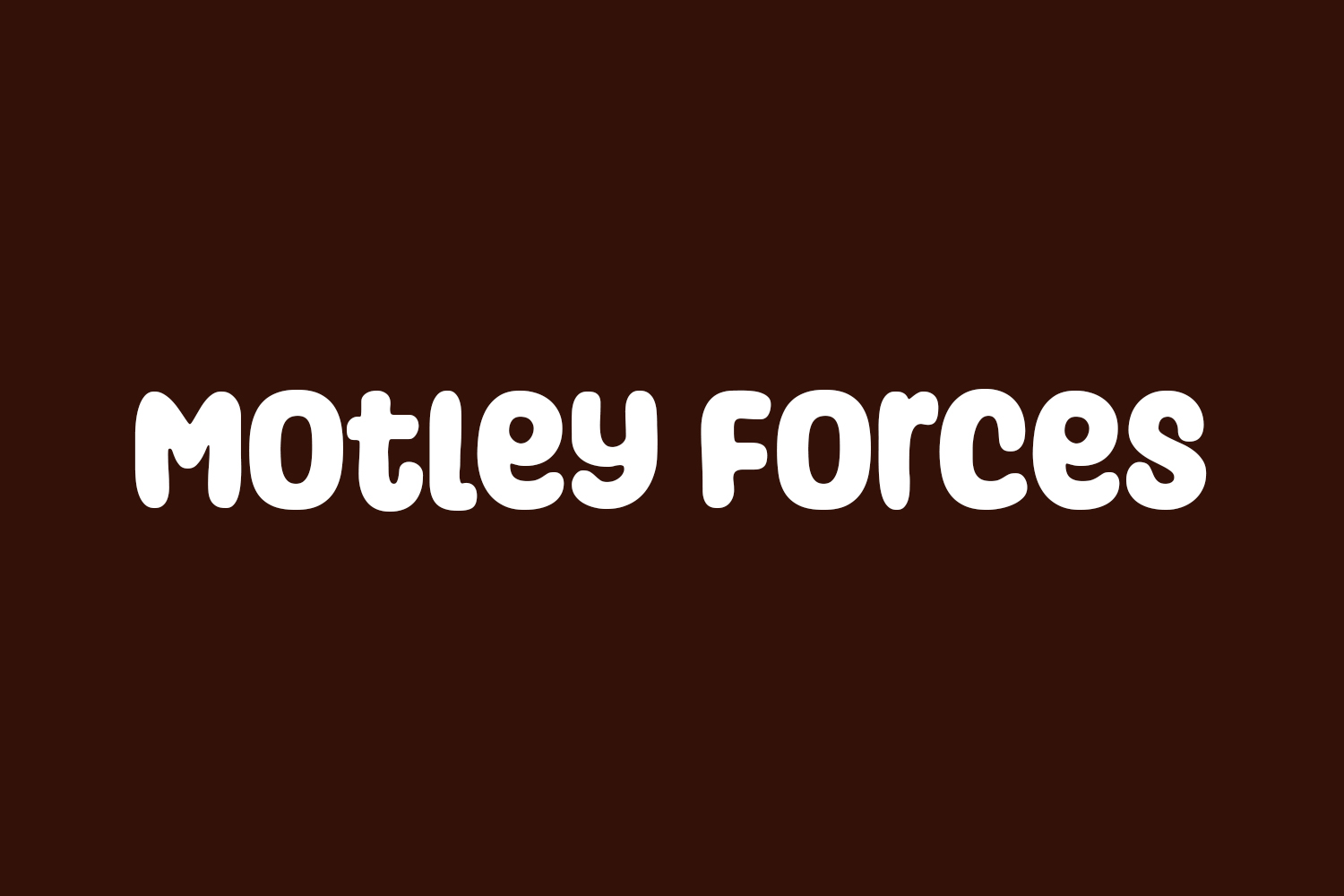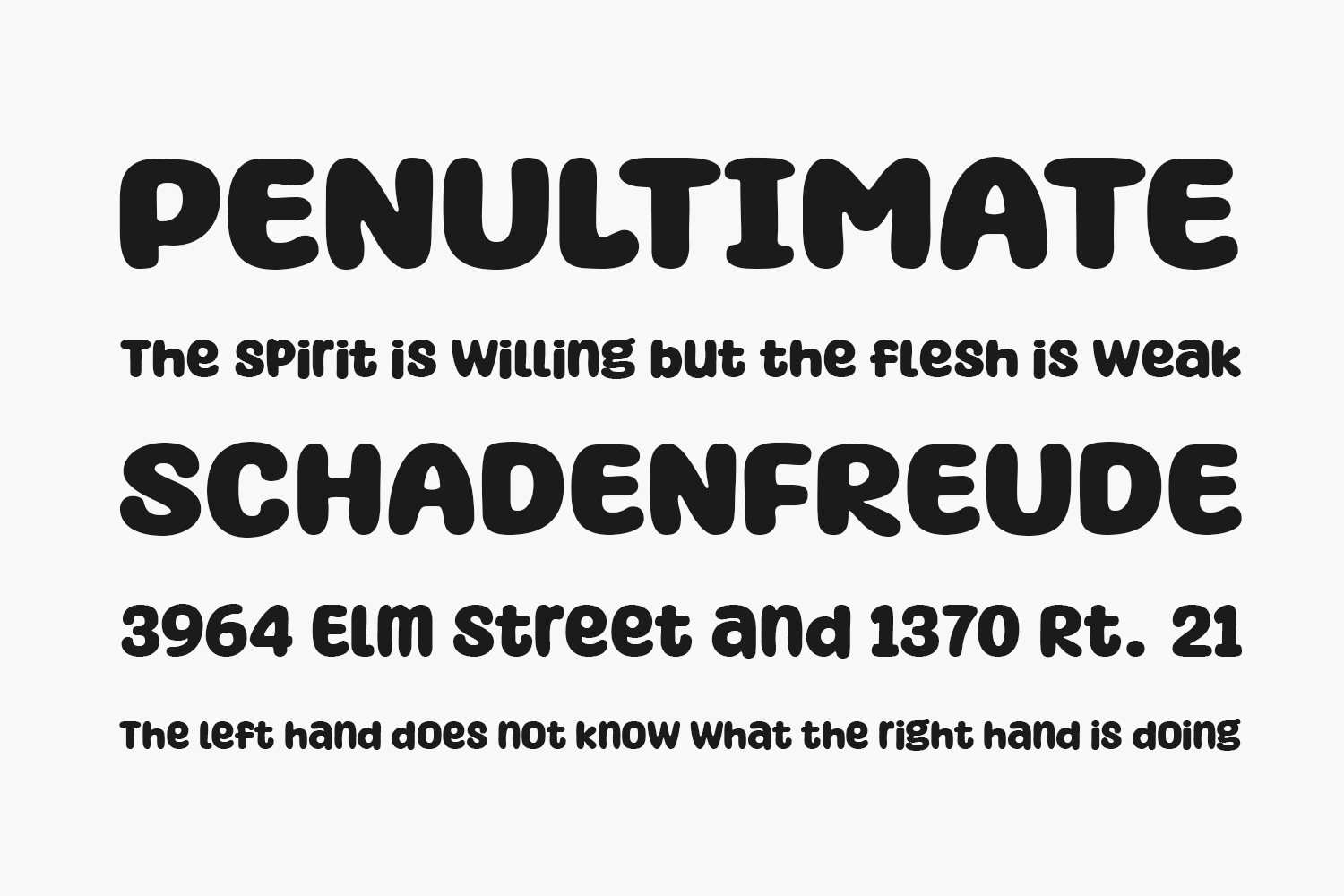
Explore the whimsical world of Motley Forces Free Font, a playful and fun handwritten font. With a touch of quirkiness, this versatile font seamlessly fits into a myriad of contexts, adding a delightful charm to your designs. Motley Forces Free Font is free for personal use only. Please purchase the full version for commercial use.
Designed by Niskala Huruf